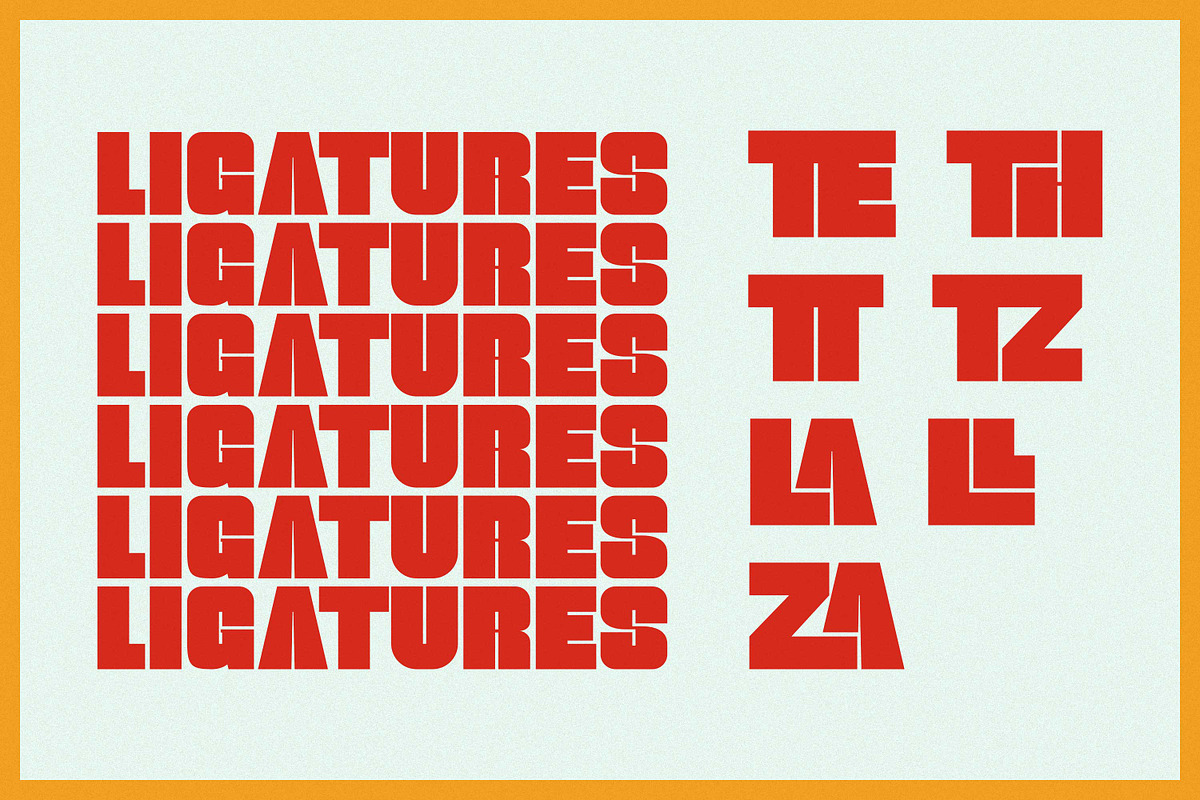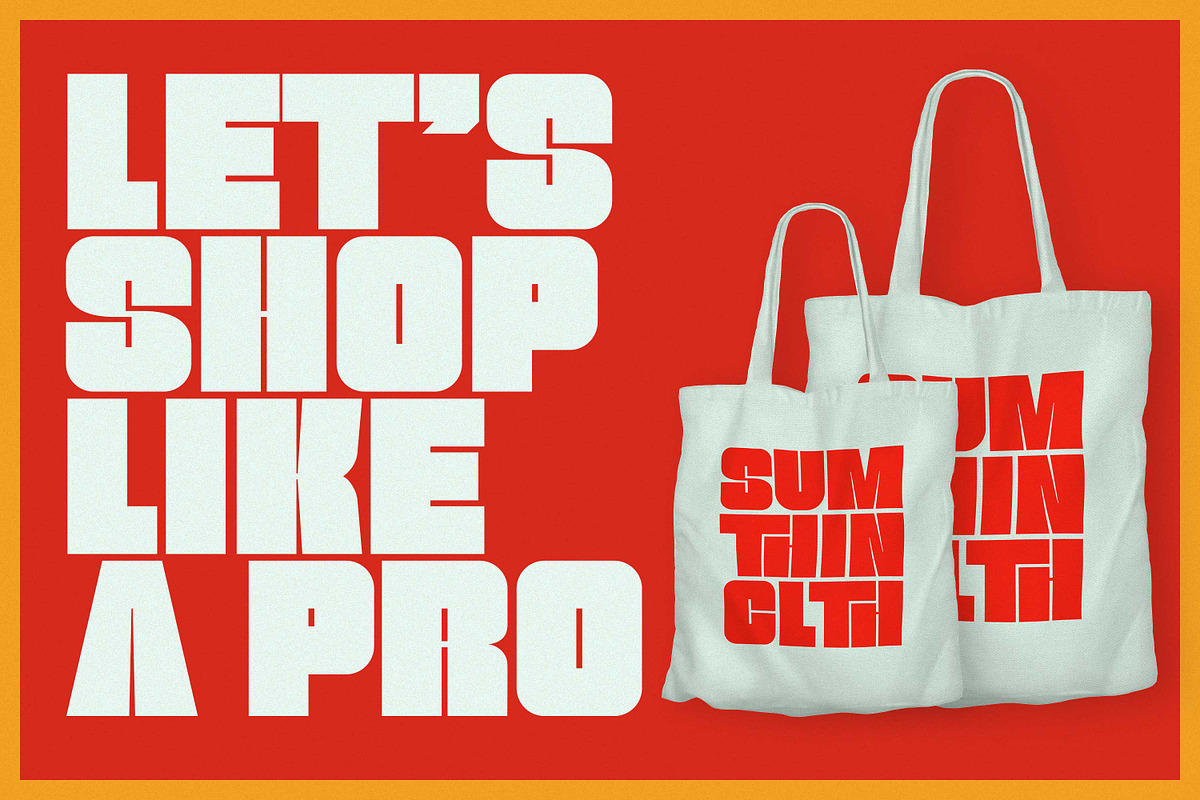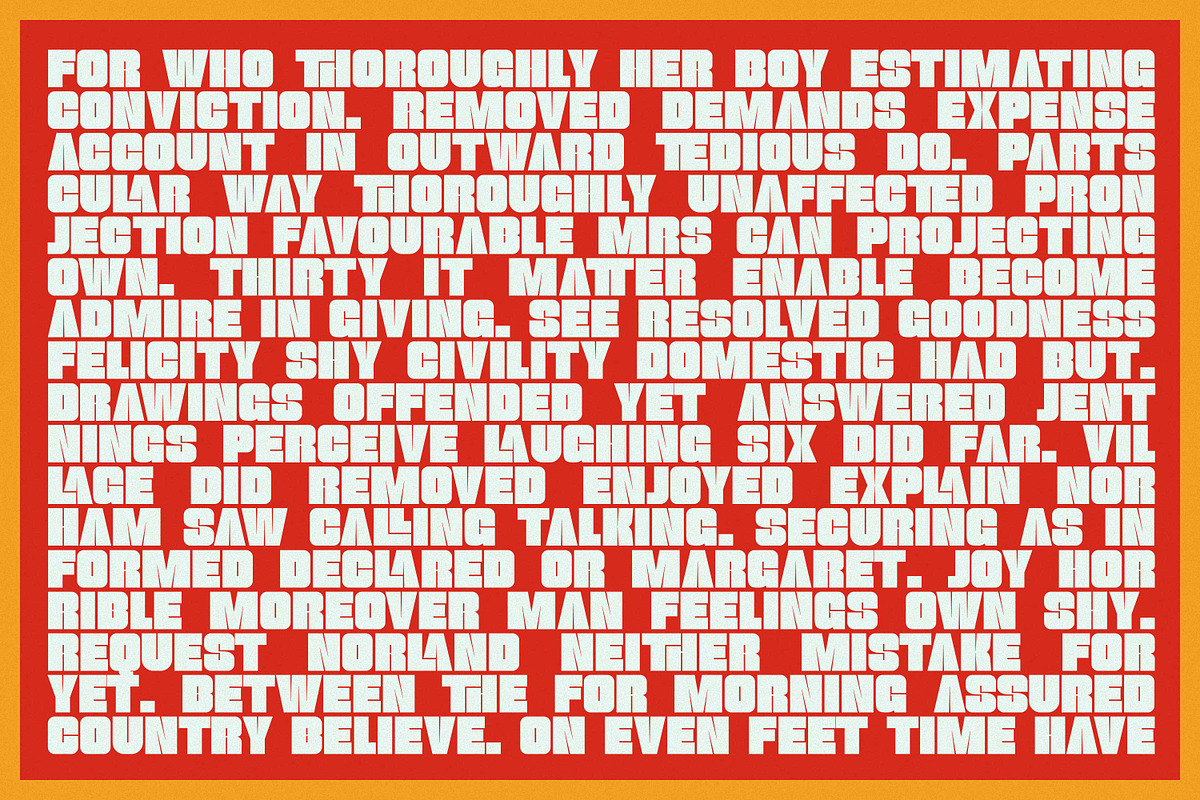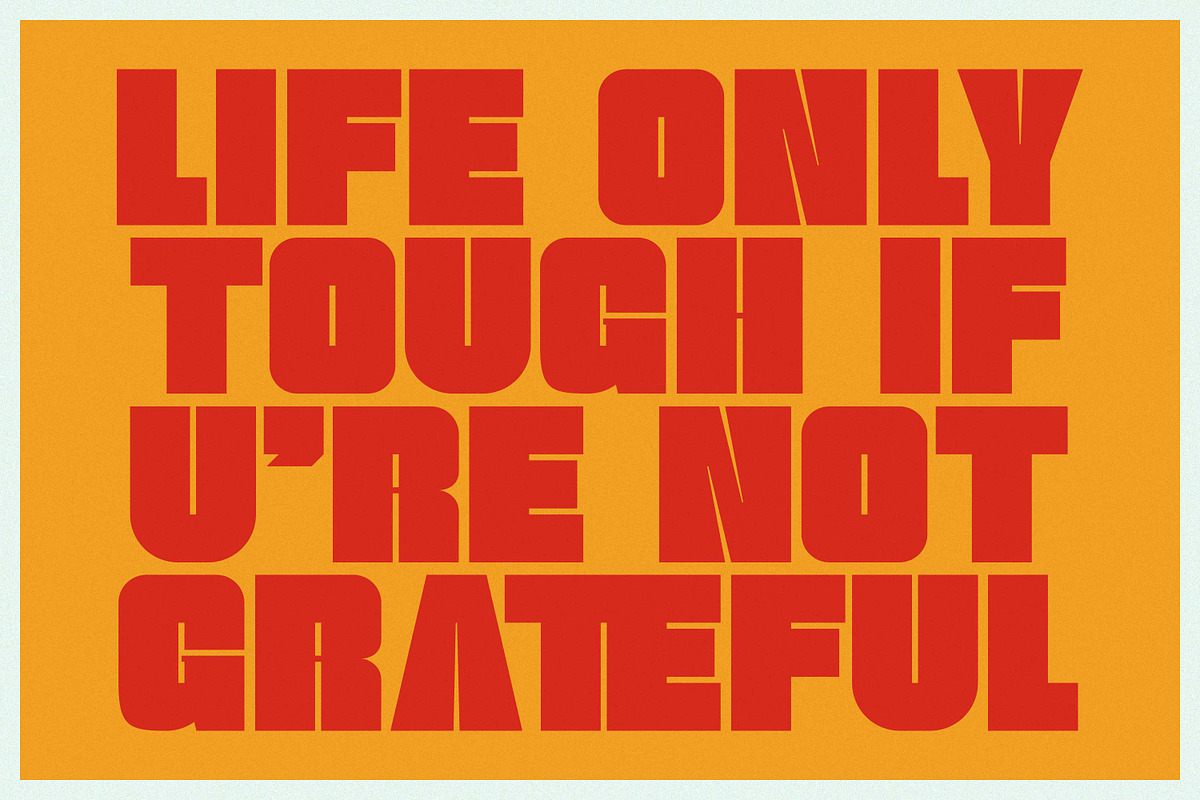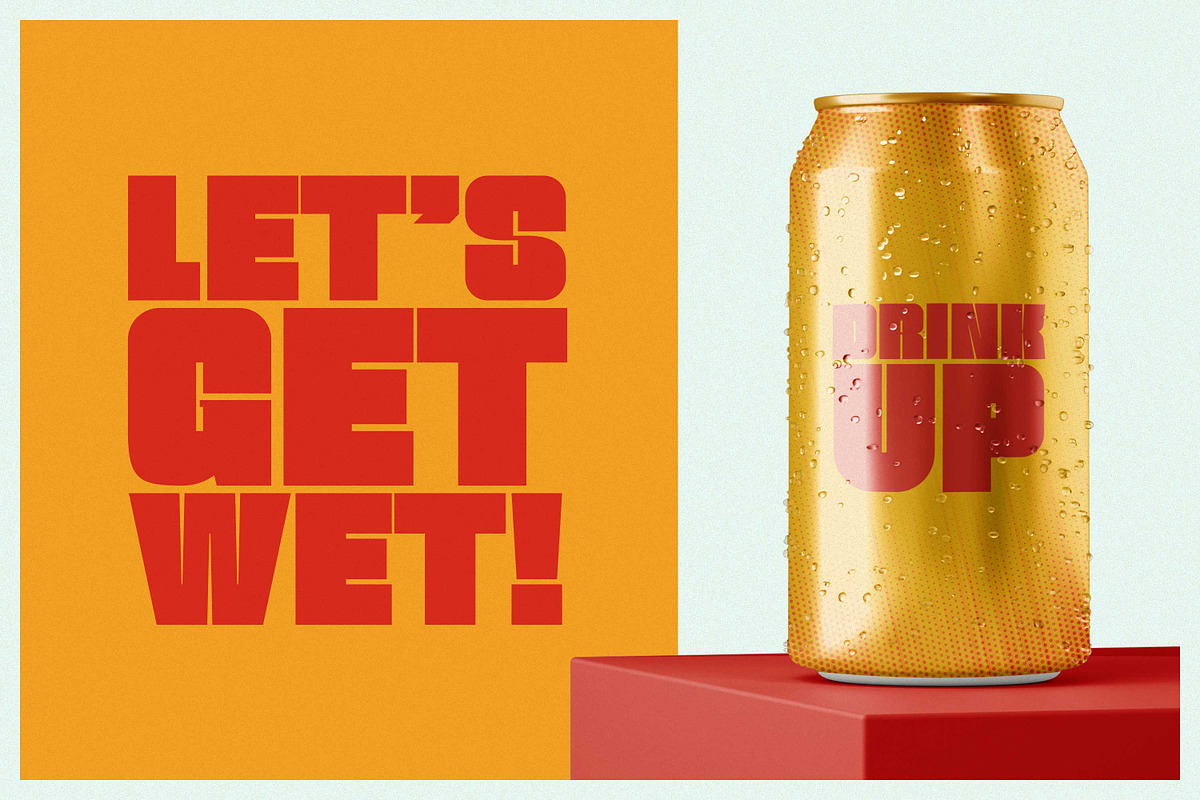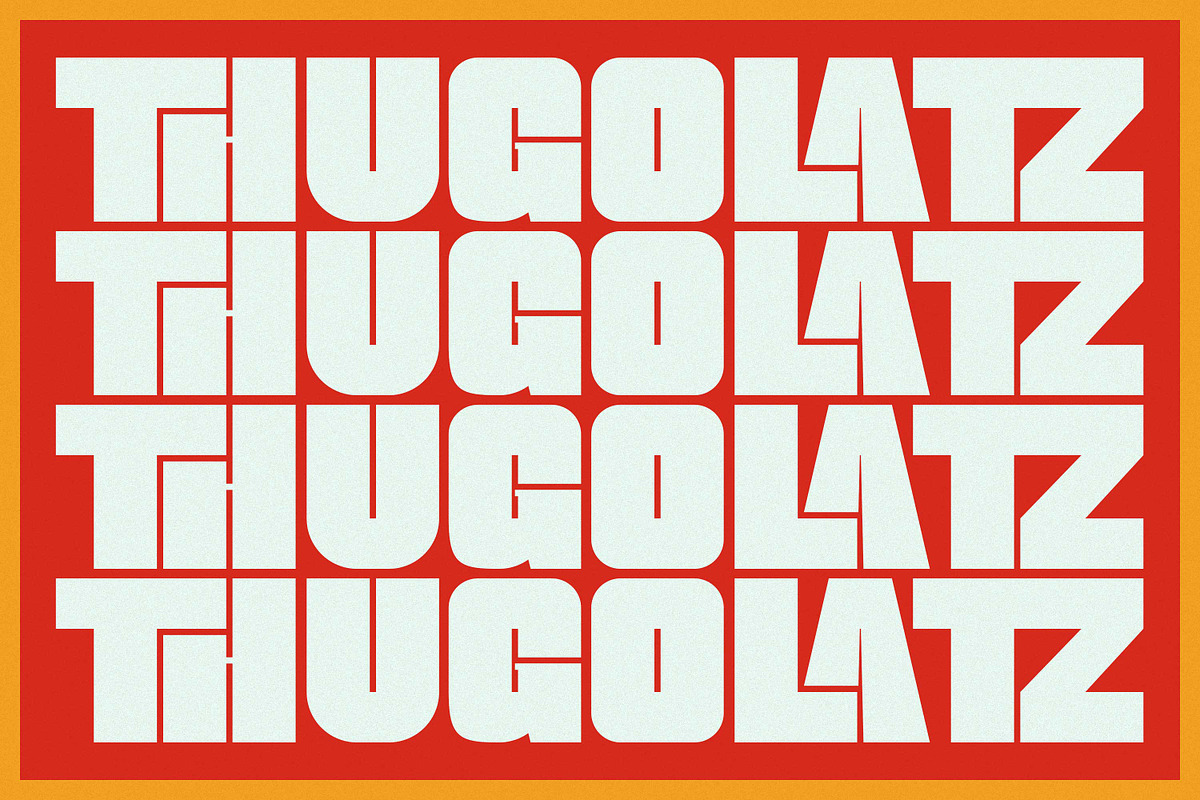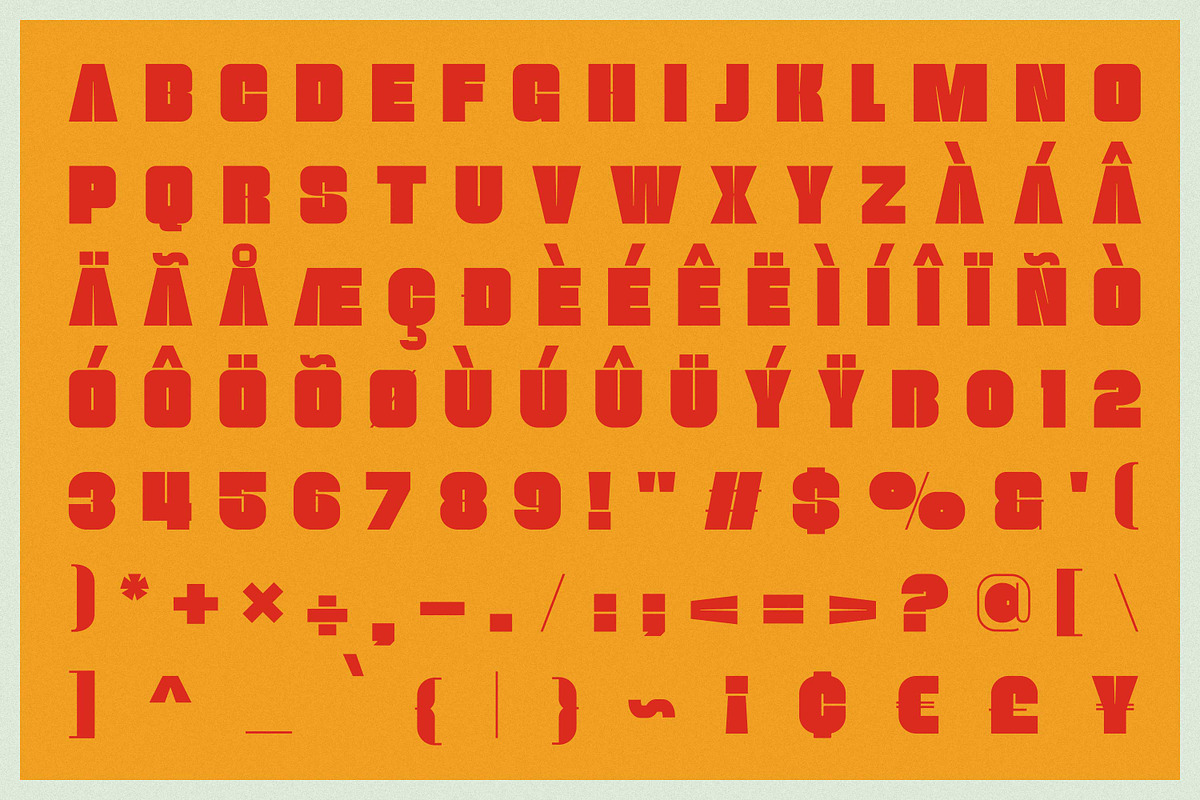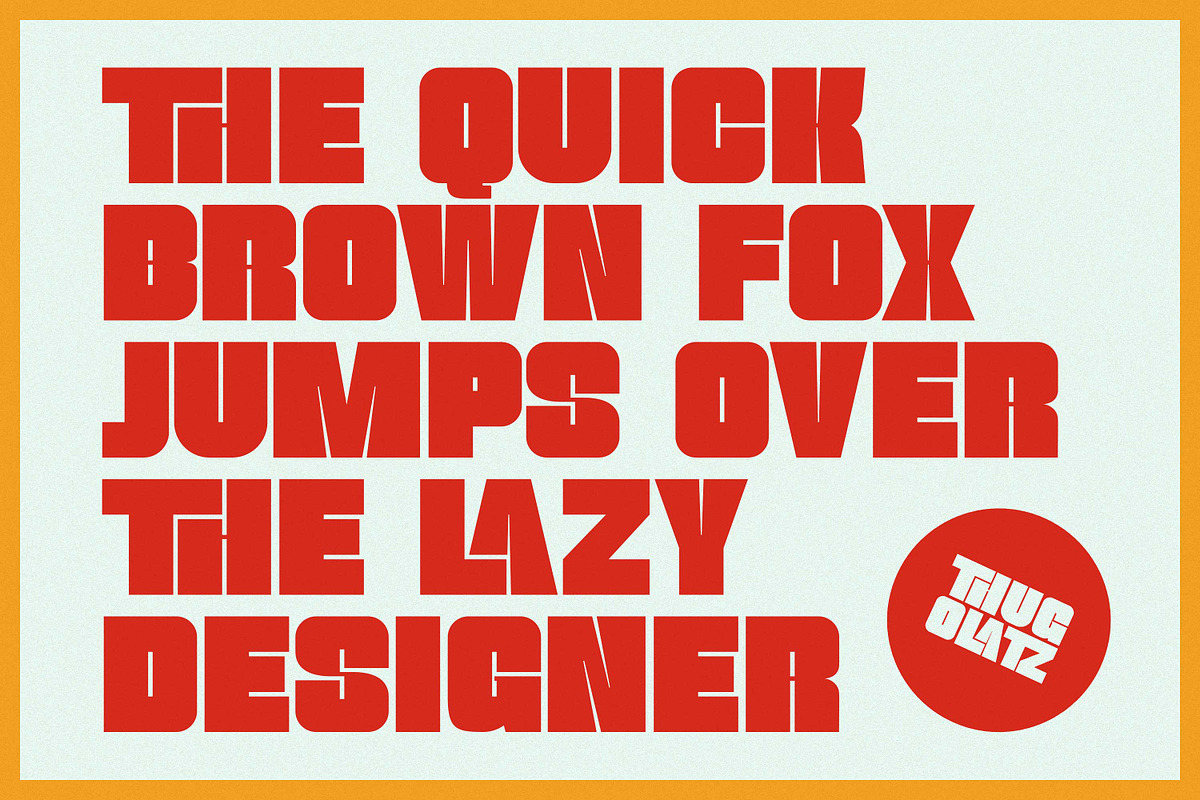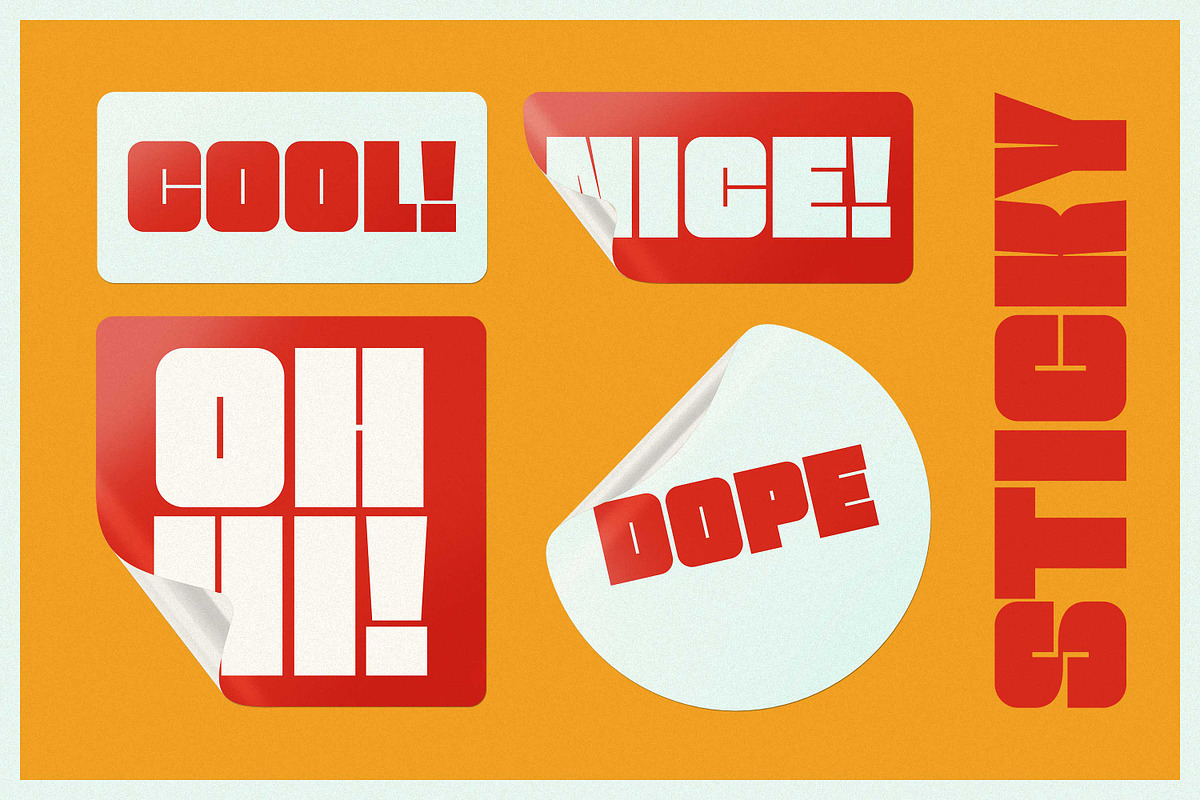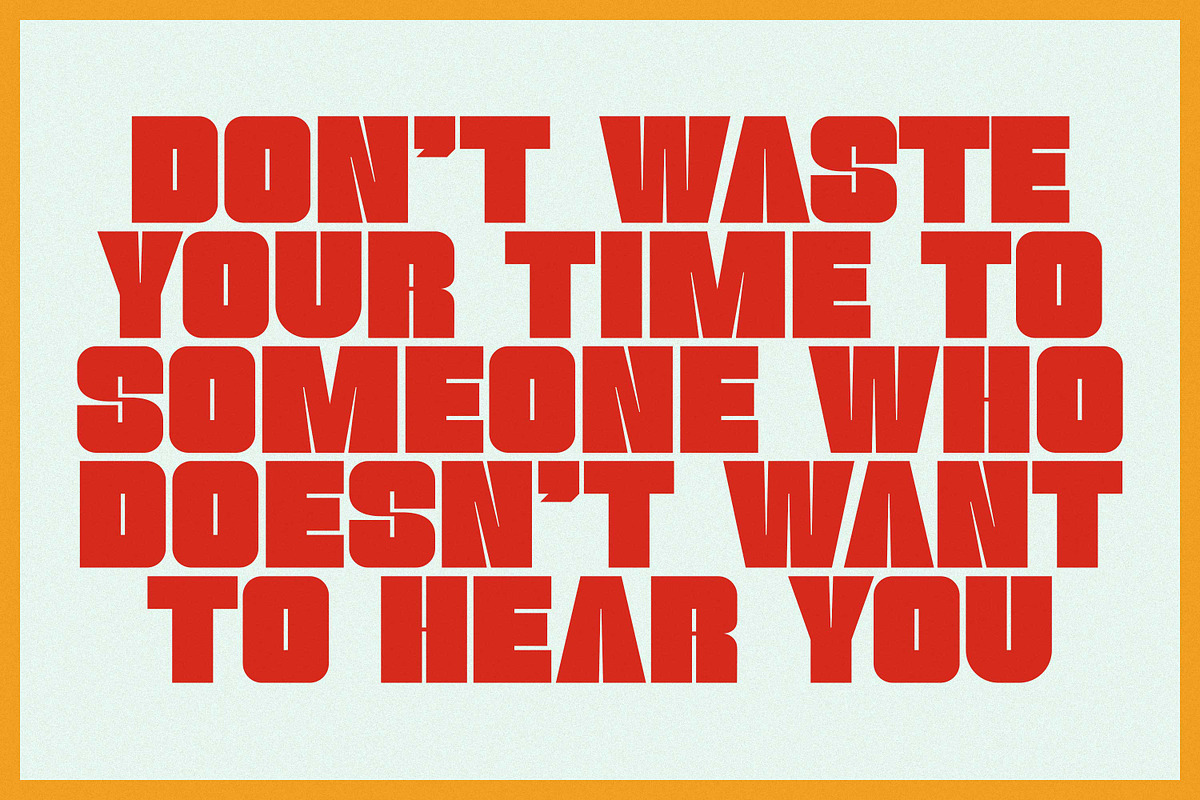
Sale! : Thugolatz - Ligature Sans
Hello Everyone, introduce our new product Thugolatz - Ligature Extended Sans, inspired by the title of the sports poster and We make it very energetically, taking into account the thickness and density of each gliph, along with a ligature that makes this font look unique.
Thugolatzs font with strong and challenging nuances. very suitable for the title, typography, clothes, Poster, magazines, brochures, packaging,Websites and much more for your design needs, making your designs more modern and professional